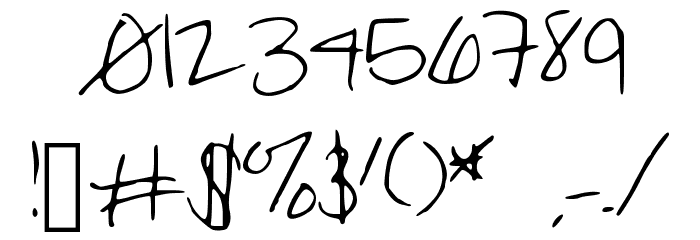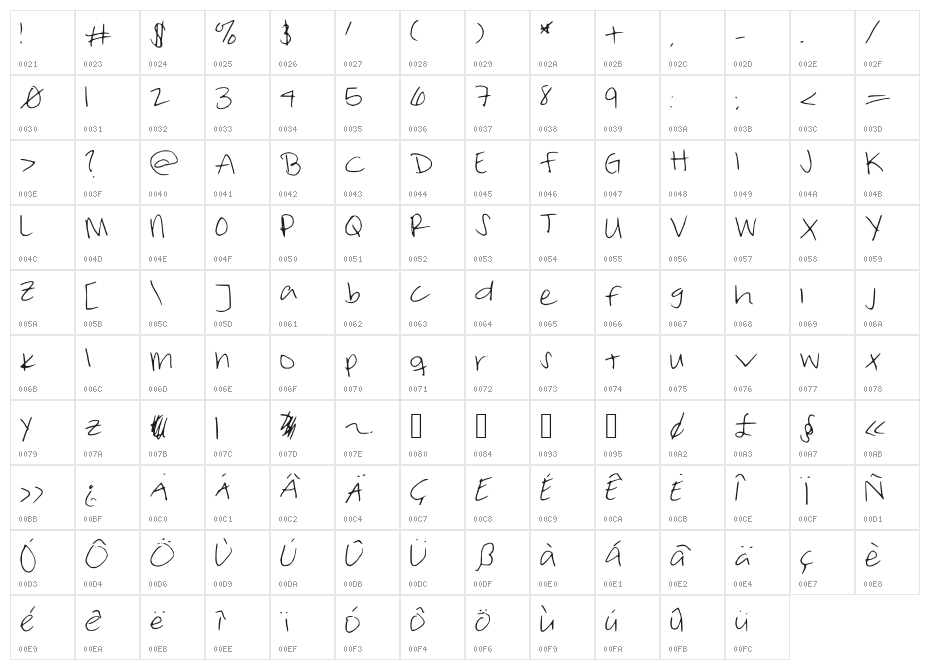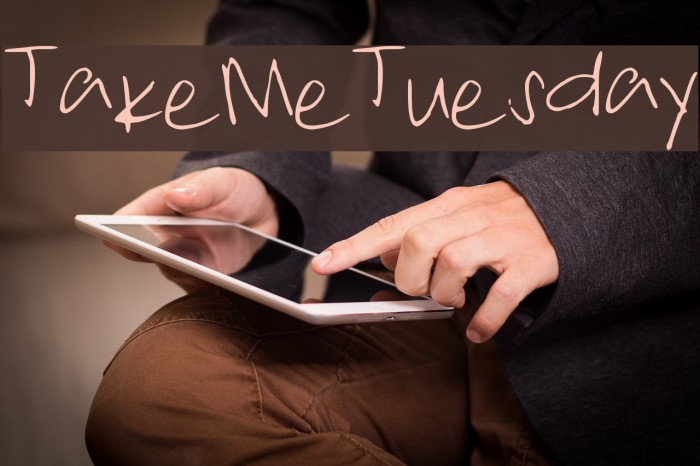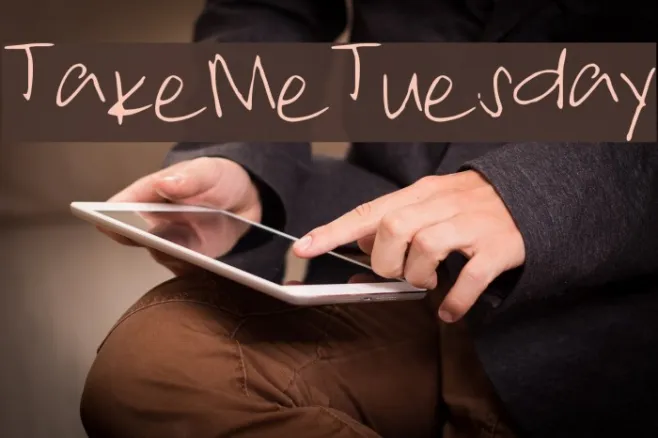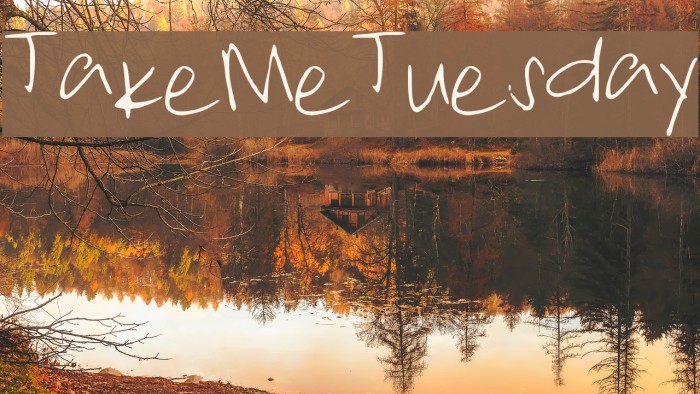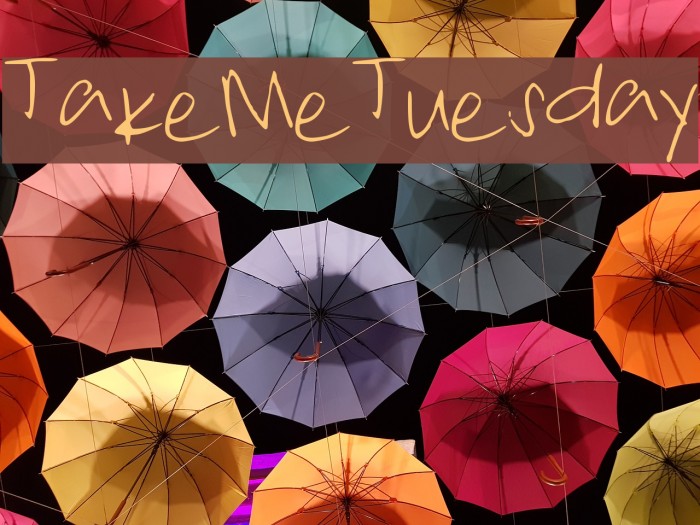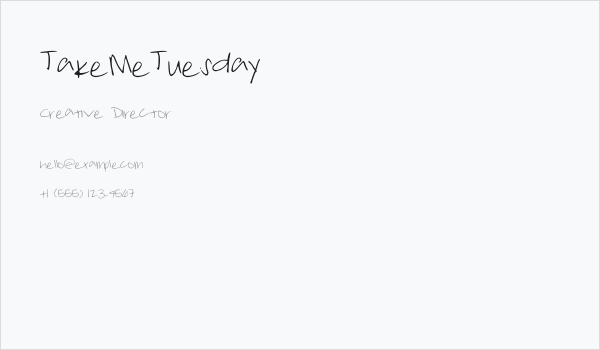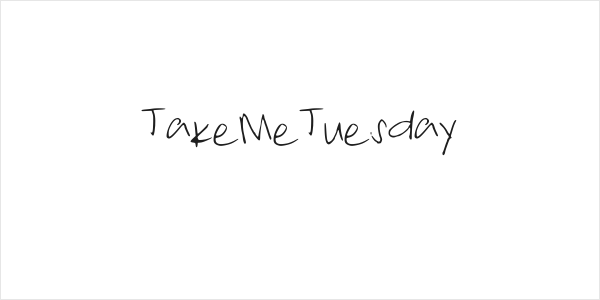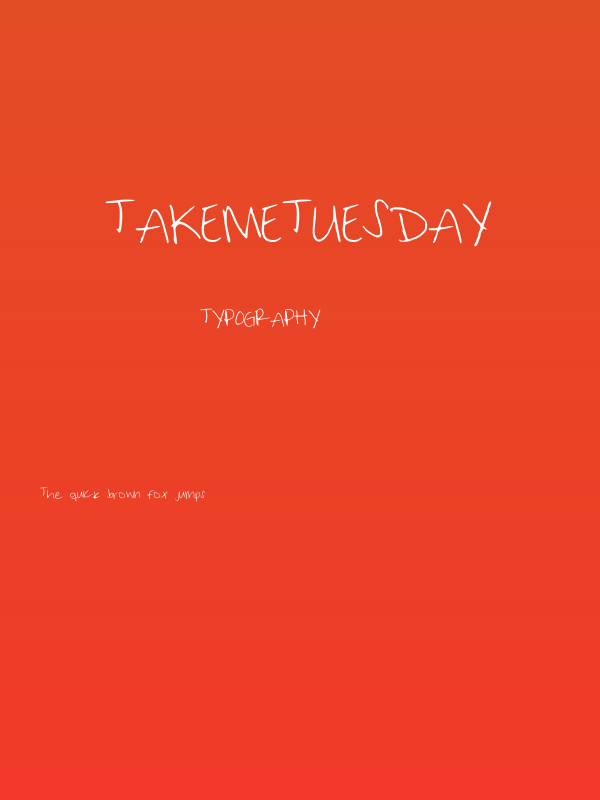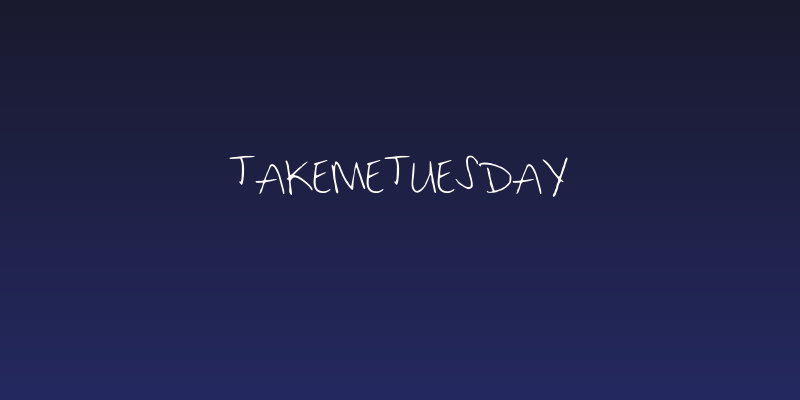
TakeMeTuesday Font
TakeMeTuesday Description
This font exudes a casual, handwritten style with a playful and informal appearance. The letters are characterized by their uneven strokes and slightly irregular shapes, giving them a natural and spontaneous feel. The uppercase and lowercase letters maintain a consistent flow, while the numbers and special characters complement the overall aesthetic. The font's design is reminiscent of a personal note or a quick sketch, making it ideal for projects that require a touch of personality and warmth. Its unique charm lies in its ability to convey a sense of authenticity and creativity.
| Use Case | Logos, Invitations, Personal notes |
| Proposed Projects | Ideal for greeting cards, personal notes, creative projects, and informal branding. |